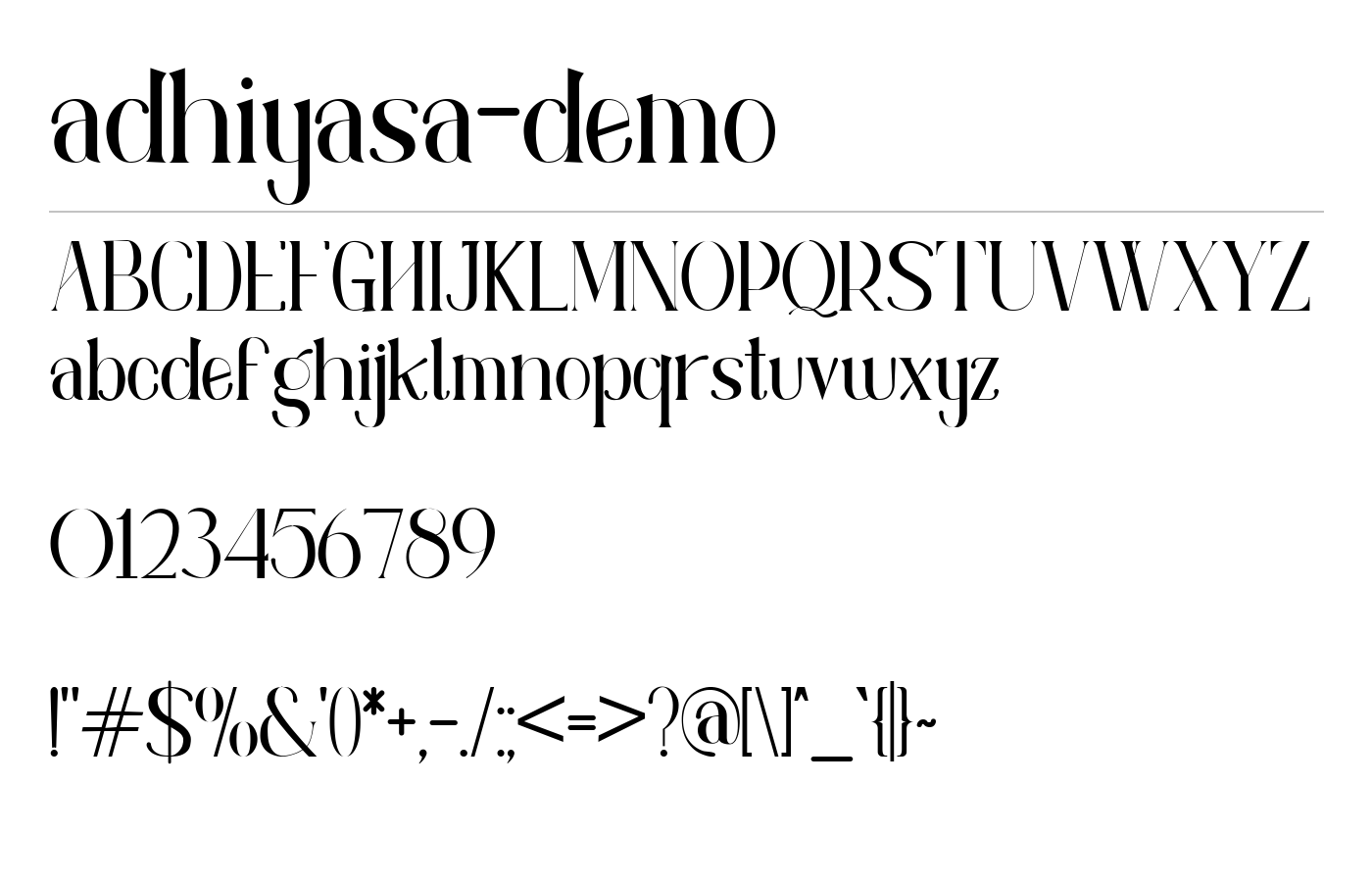
Adhiyasa-demo is an elegant serif font with a modern, high-contrast design showcasing thin, sharp strokes and distinctive vertical stress. Its tall, narrow letterforms and delicate curves convey a refined, fashionable feel, making it ideal for luxury branding, editorial headlines, and sophisticated packaging. This font’s unique style adds a striking yet graceful touch, perfect for projects that aim to stand out with a contemporary and upscale personality.
adhiyasa-demo Font
About adhiyasa-demo Font
| Font family | adhiyasa-demo Font |
| Designer | Irfan Hidayat |